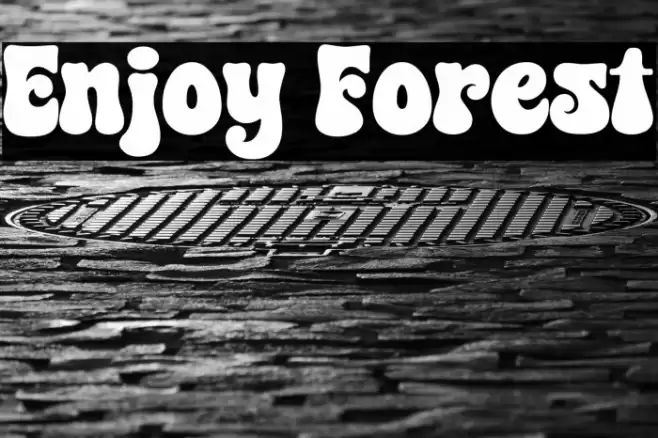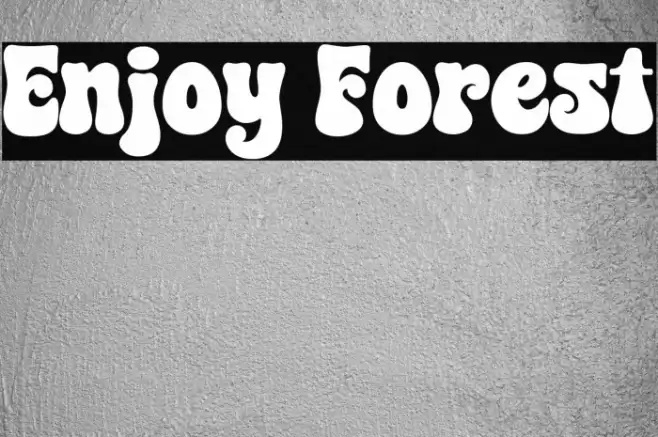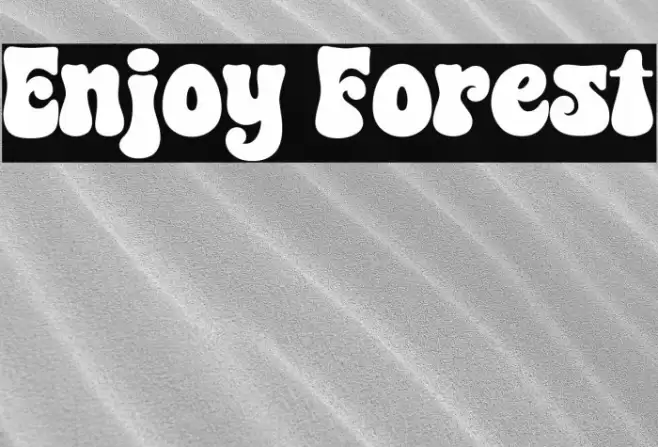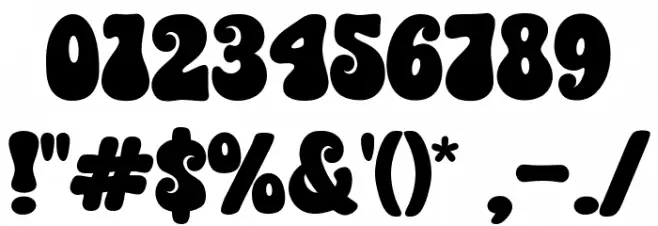
Enjoy Forest Font
Enjoy Forest Description
This font features a bold and playful design with thick, rounded characters that exude a sense of fun and whimsy. The letters are heavily stylized with a bubbly appearance, making them stand out with a unique personality. The overall look is reminiscent of retro or psychedelic styles, with each character having a distinct, almost cartoonish quality. The numbers and special characters maintain this playful aesthetic, ensuring consistency across all elements. The font's boldness and rounded edges make it highly legible while still maintaining its decorative appeal.
A bold, playful font with thick, rounded, and bubbly characters from Uncategorized fonts.
- Font: Enjoy Forest
- Proposed Projects: Ideal for children's books, playful branding, retro-themed designs, and event posters.
- Overall Style: Retro, Playful
- Use Case: Logos, Posters, Headlines